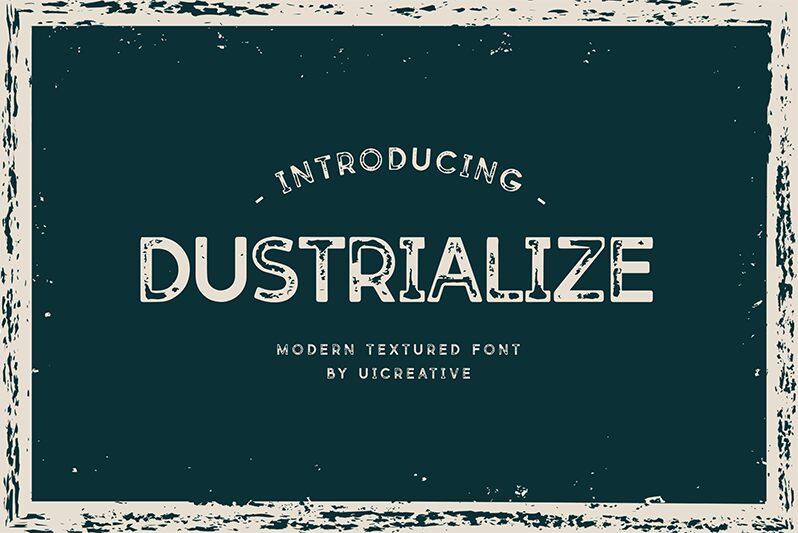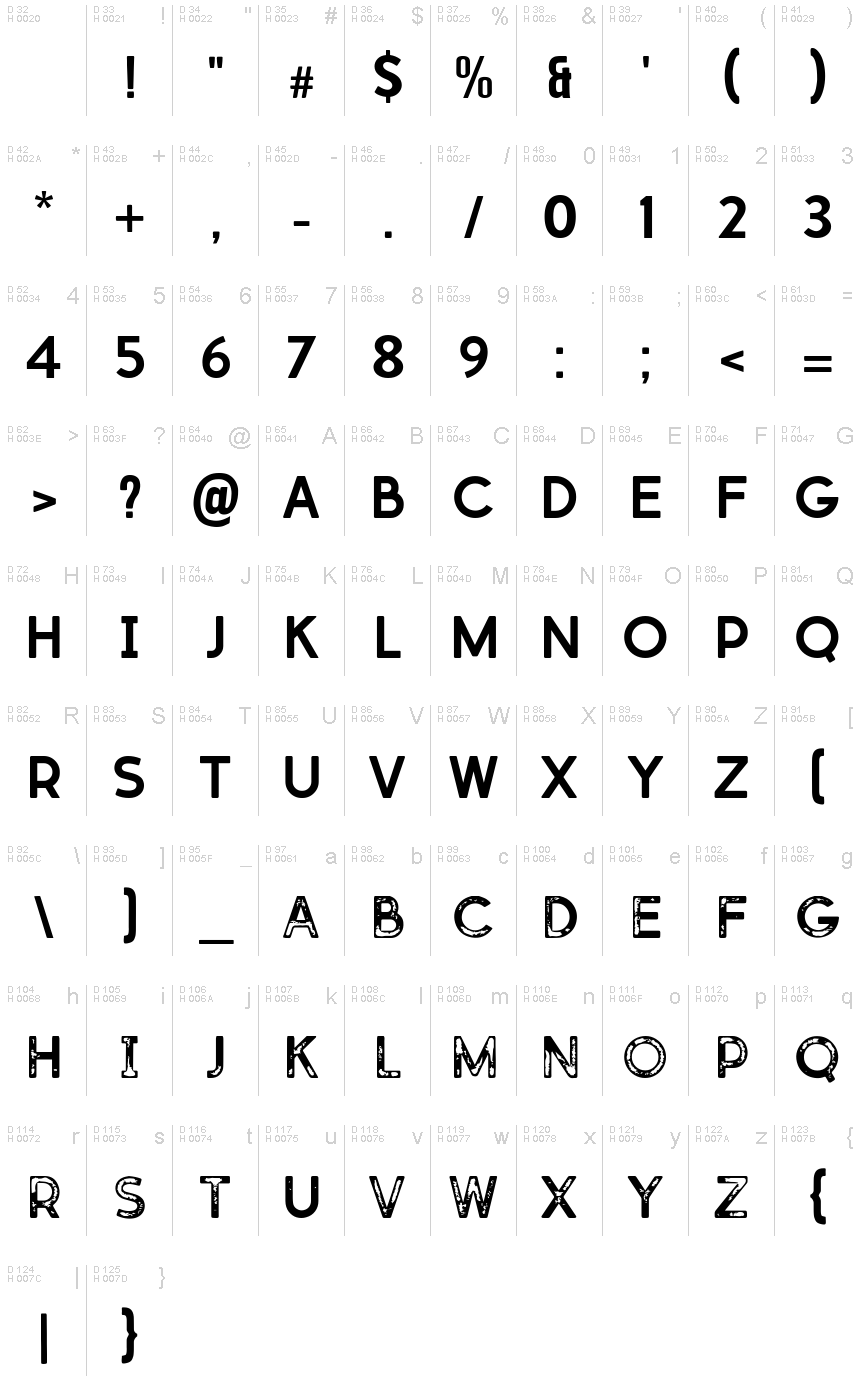
dustrialize
Dustrialize, a captivating sans serif font crafted by UI Creative, embodies a rugged, weathered charm. Its eroded letterforms evoke a sense of industrial grit and weathered resilience, making it a distinctive choice for design projects seeking a bold, impactful aesthetic. The font's striking visual presence commands attention, seamlessly blending modern minimalism with a hint of vintage character.
This versatile font lends itself well to a variety of design applications, from branding and packaging to editorial layouts and signage. Its robust, eye-catching nature makes it an excellent selection for headlines, logos, and other prominent design elements that demand a strong, attention-grabbing presence. Dustrialize's unique personality also allows it to seamlessly integrate into various design styles, from industrial-inspired compositions to edgy, contemporary visual narratives.